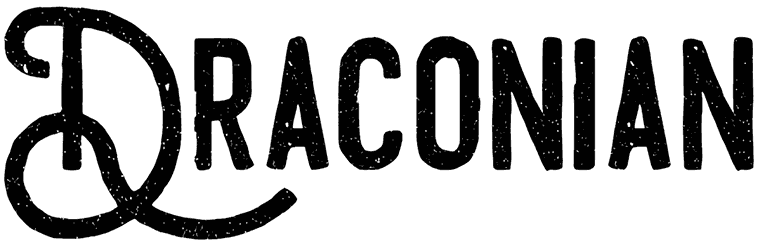
Draconian Font
We see some small curvatures on the left top of the characters and big curvatures on the right bottom of them. Audiences probably will have problems with its readability.
The designer has not created lowercase letters. But this distressed typewriter font can be employed in designing branding, promotions, and all attention-grabbing projects. The Draconian font can be the best option for local and international magazine titles.